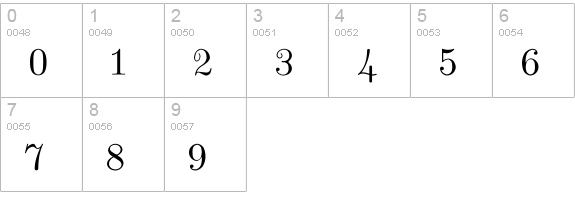
CM_Unslanted Italic is a distinctive, italic variant in the CM_Unslanted typeface family \xE2\x80\x94 well suited to design and typography projects.
CM_Unslanted Italic is a sleek and modern font that exudes elegance and sophistication. With its slightly slanted and italicized design, this font is perfect for adding a touch of style to any project. Whether you are designing a website, creating a poster, or crafting a logo, CM_Unslanted Italic will make your text stand out. The best part? CM_Unslanted Italic is completely free to download at FontsMarket.com. That's right, you can elevate your designs with this stunning font without spending a dime. Don't miss out on this opportunity to enhance your creative projects with CM_Unslanted Italic. Download it today and take your designs to the next level!